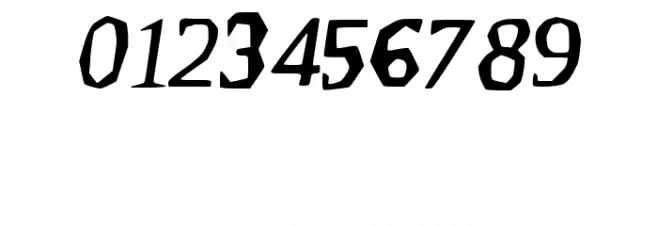
Trapcode_Form Font
Trapcode_Form Description
This font features a bold and dynamic style with a modern twist. The characters are designed with sharp, angular cuts and a geometric flair, creating a sense of movement and energy. The uppercase letters are particularly striking, with a unique blend of solid and negative spaces that add depth and interest. The numbers and special characters follow the same design principles, ensuring consistency across all elements. This font is well-suited for projects that require a strong visual impact and a contemporary aesthetic.
A bold, dynamic font with sharp, angular cuts and a modern geometric style from Distorted Eroded fonts.
- Proposed Projects: Ideal for branding, posters, headlines, and any design work that requires a strong, modern visual impact.